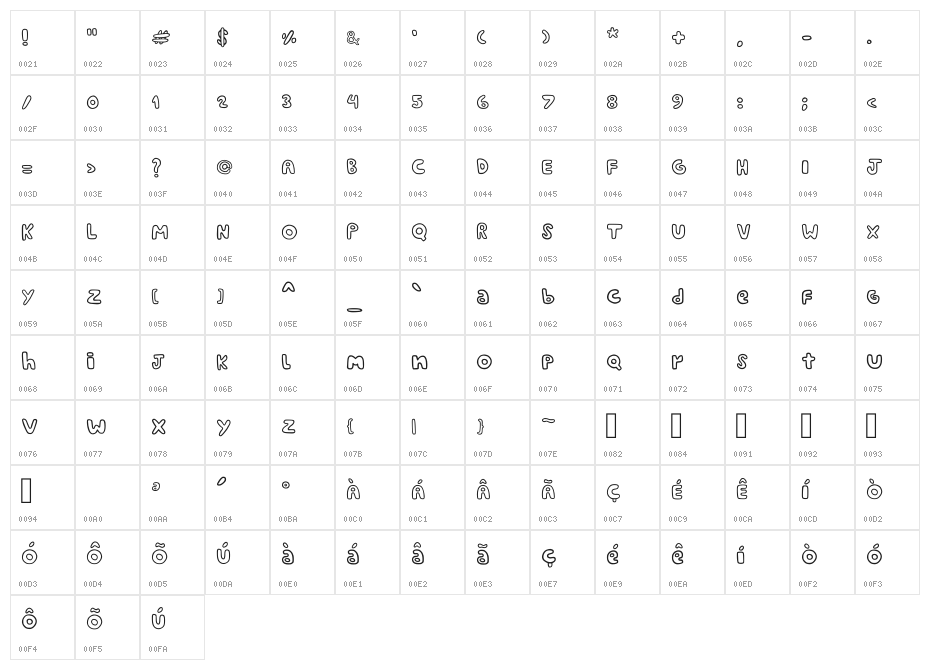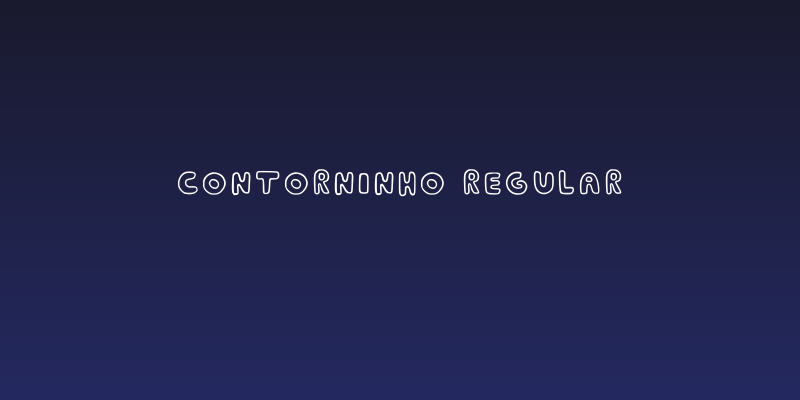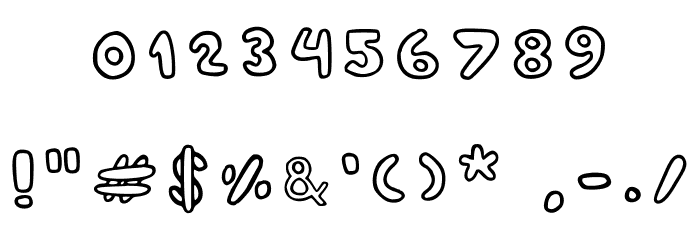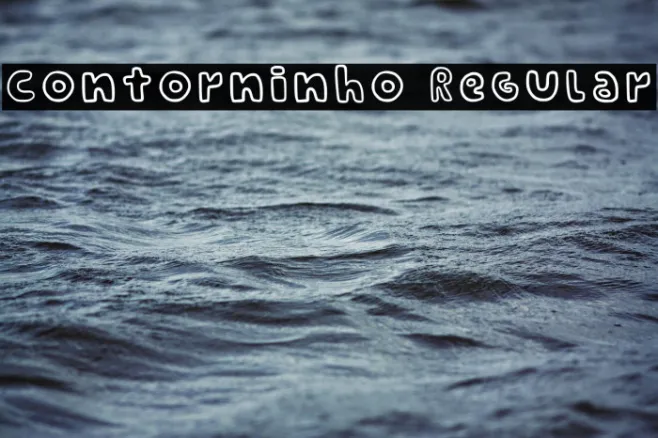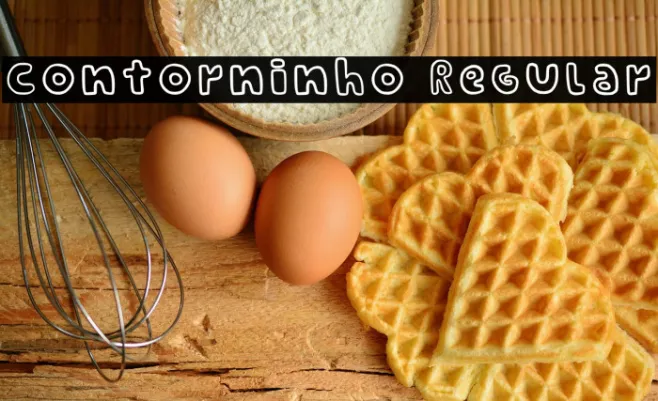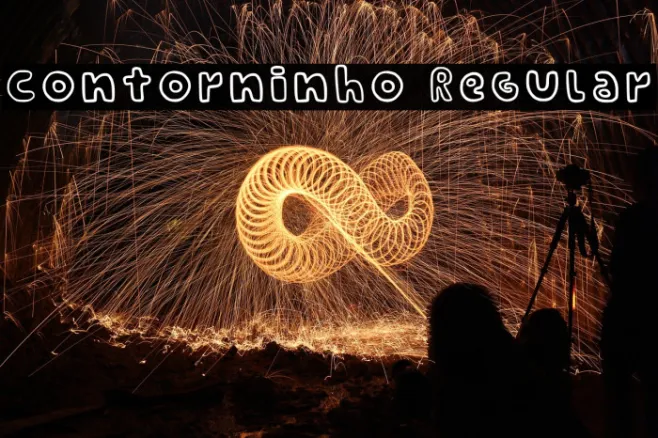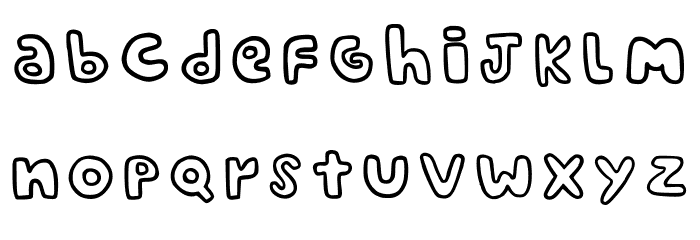
Contorninho Regular Font
Contorninho Regular Description
This playful and whimsical font features bold, rounded outlines that create a sense of fun and creativity. Each character is designed with a consistent thickness, giving it a uniform appearance while maintaining a hand-drawn aesthetic. The letters are slightly irregular, adding to the casual and approachable feel. The font includes both uppercase and lowercase letters, numbers, and a variety of special characters, making it versatile for different uses. Its unique style is perfect for projects that require a touch of personality and charm.
| Overall Style | Whimsical, Playful |